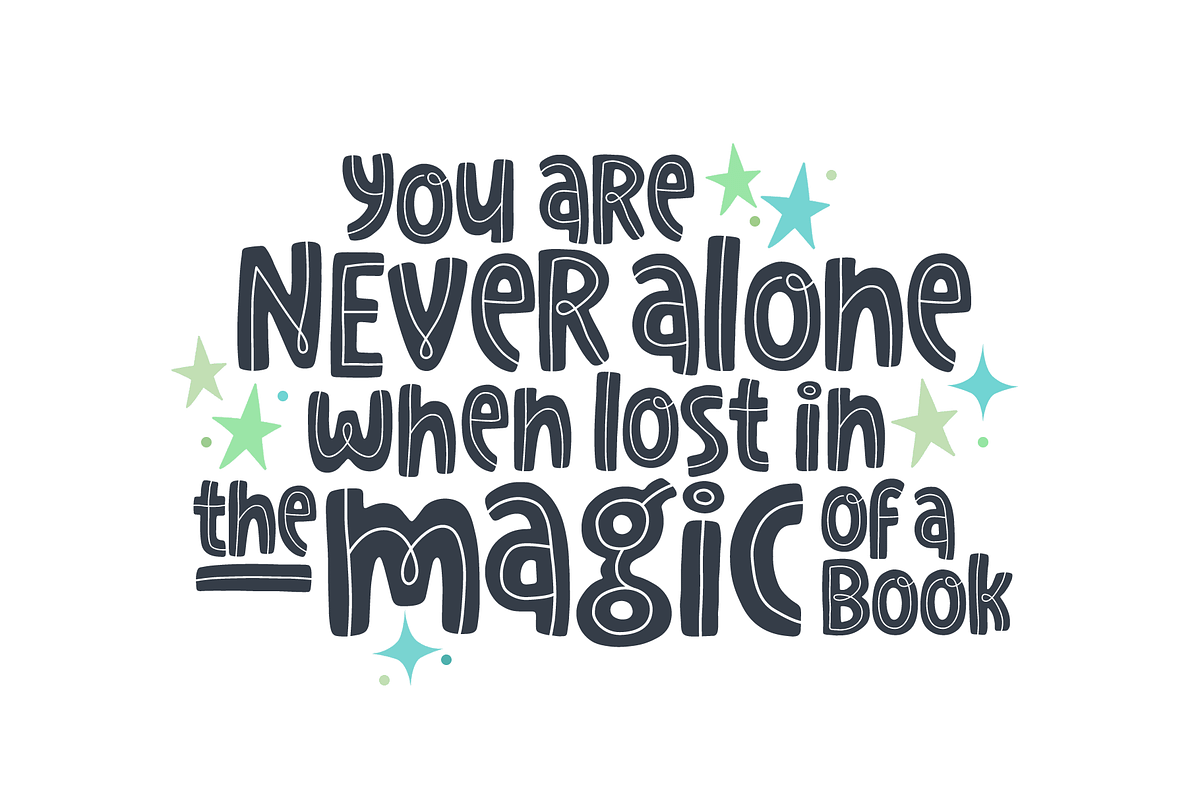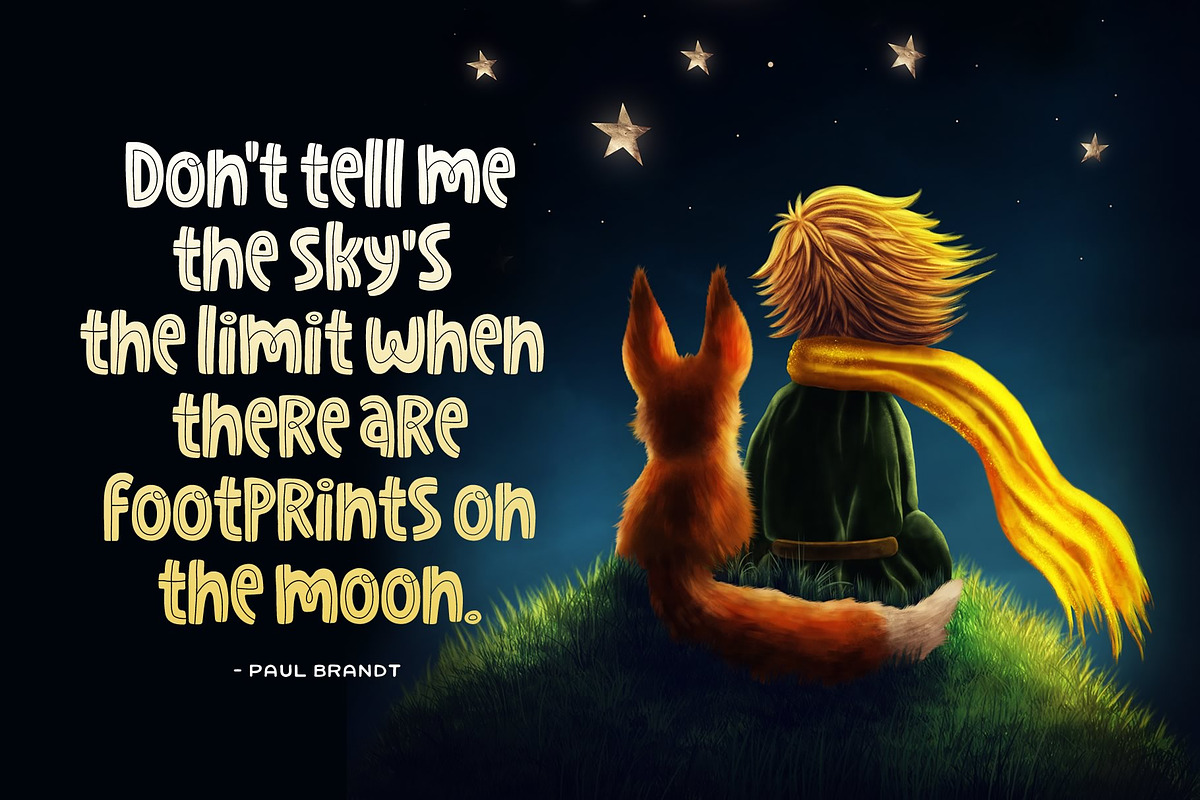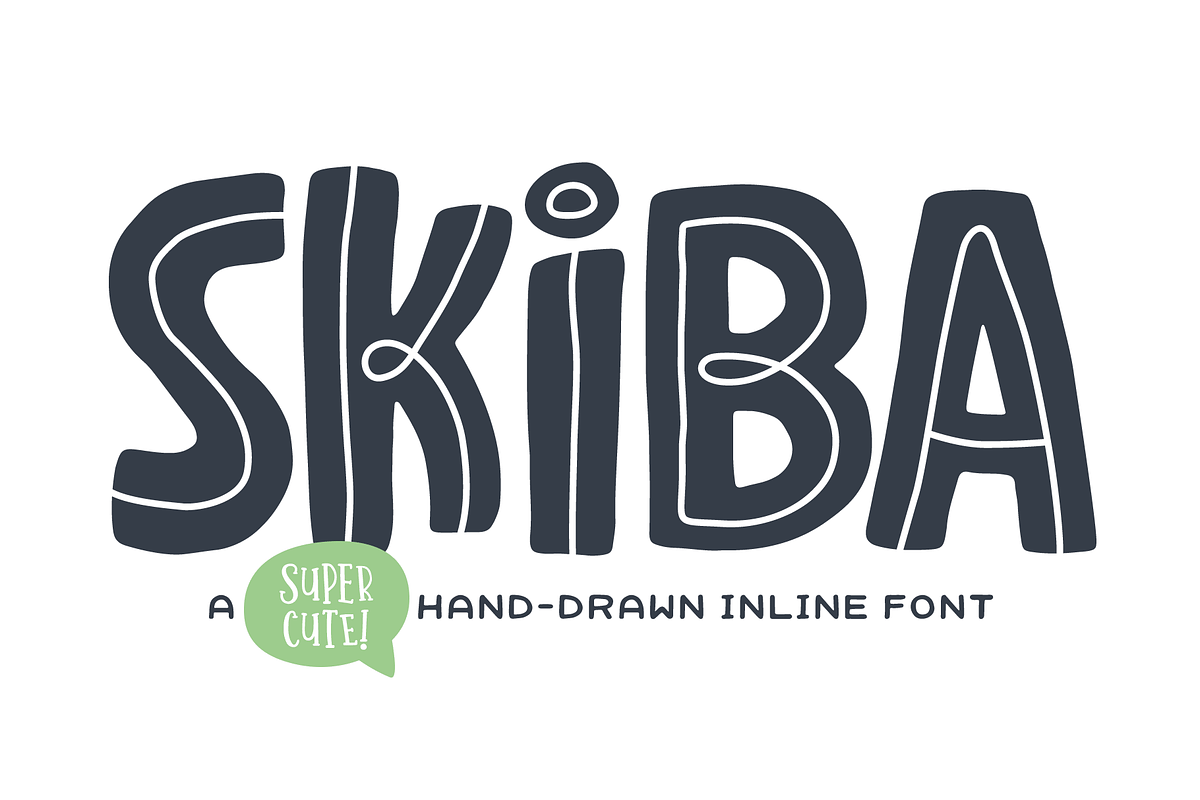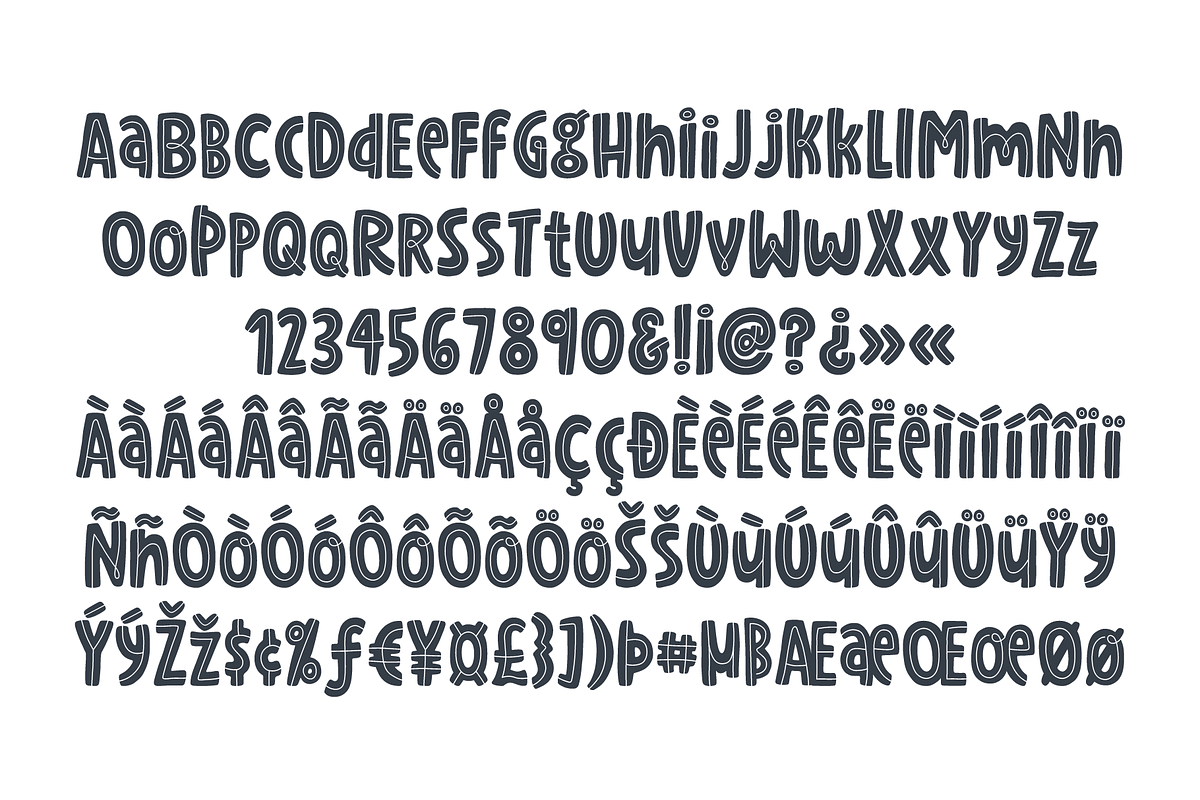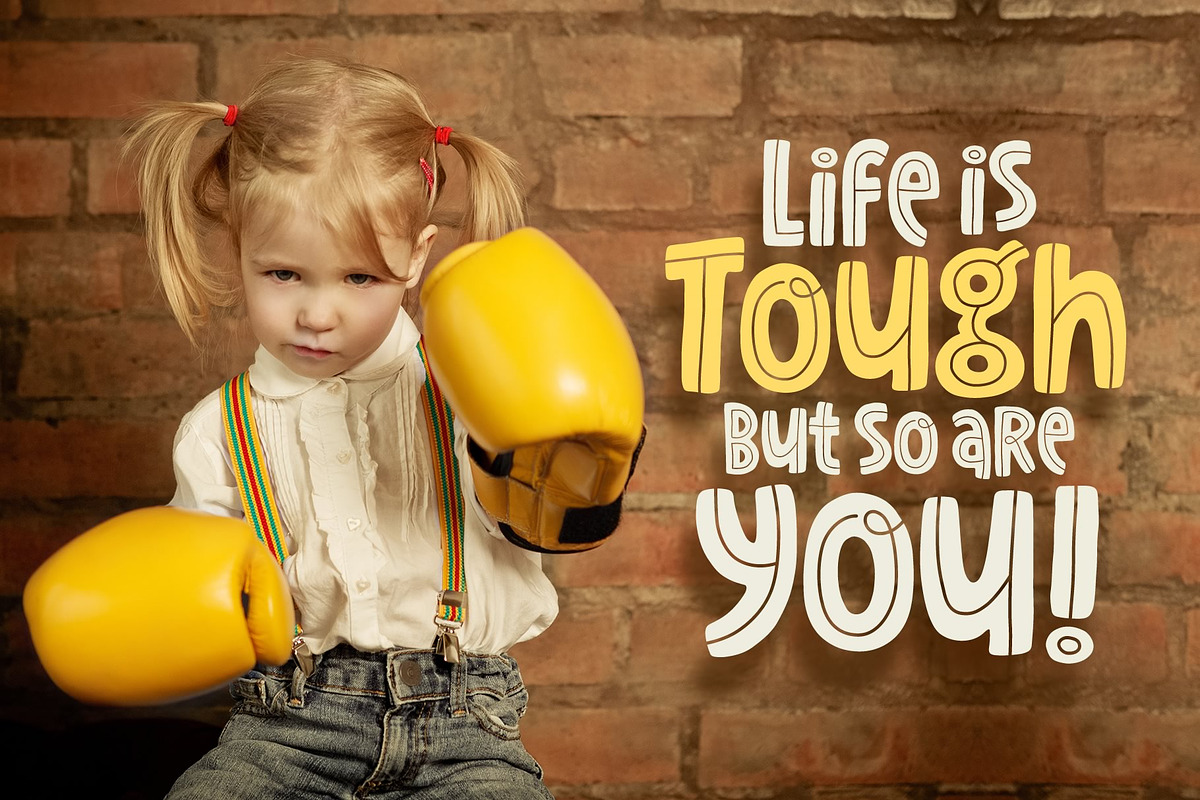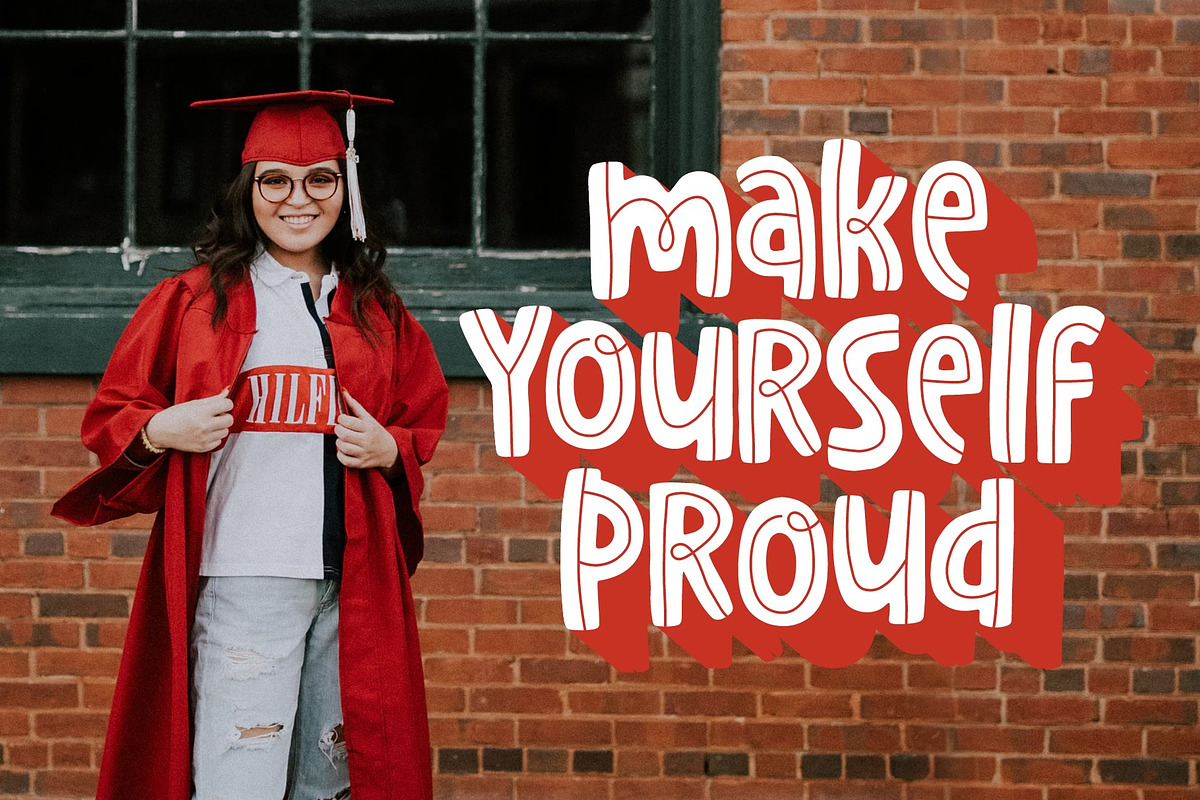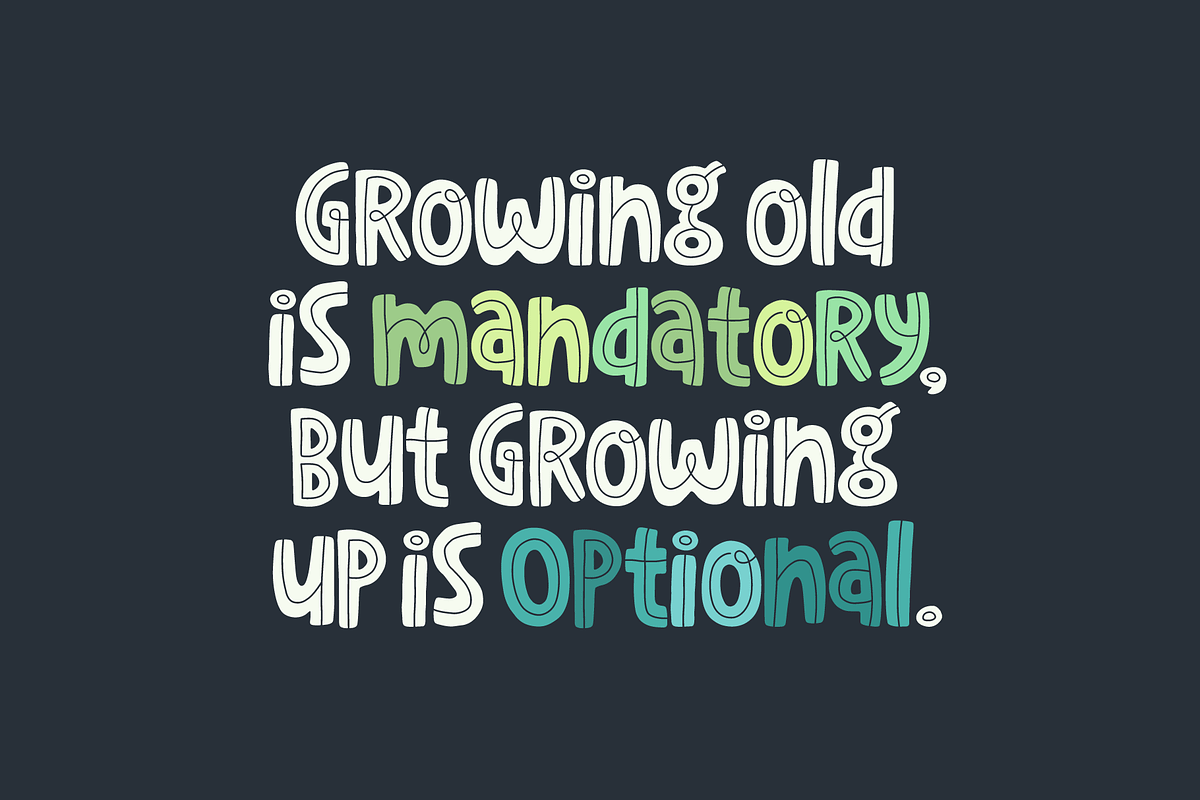
Skiba Font
Skiba is a bold, hand-drawn font with a unique inline style.
Why Skiba Font is worth a look
Skiba Font by Denise Chandler fits naturally into Branding, posters, packaging, typography.